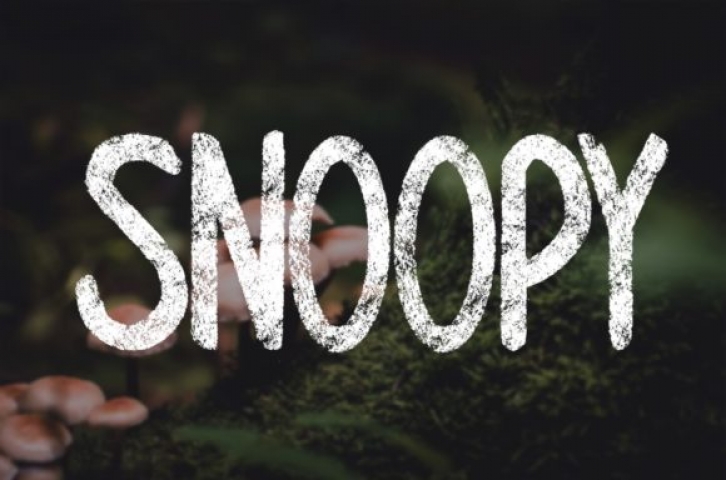
Snoopy is a cute and brushed display font. This cartoon like font will appeal to a wide range of crafty ideas, from letterheads and titles, to stationery.